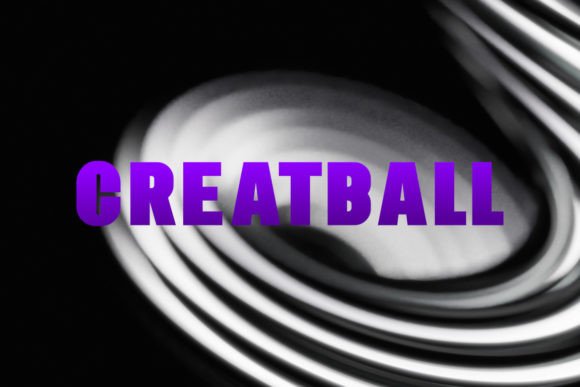
Feast your eyes upon Creatball, a masterpiece of modern typography crafted by the ingenious ffeeaarr. This sans-serif sensation exudes boldness and simplicity, promising to elevate your designs to new heights. With its clean lines, solemn demeanor, and crisp modernity, Creatball is not merely a font; it's an artistic tool that empowers you to weave stunning visual stories.
Whether you're an embroidery enthusiast seeking the perfect font to adorn your delicate creations or a discerning designer yearning for a typeface that embodies sophistication, Creatball caters to your every need. Its versatility knows no bounds, lending itself effortlessly to a myriad of design endeavors, from elegant logos and eye-catching headlines to captivating social media posts and enchanting invitations.
Indulge in the pure joy of creativity as Creatball seamlessly transforms your words into works of art. Its crisp, bold strokes dance across any surface, leaving an unforgettable mark upon the hearts and minds of your audience. Unleash the power of Creatball today and embark on an extraordinary typographic journey where boldness and modernity collide, igniting a revolution in your designs.